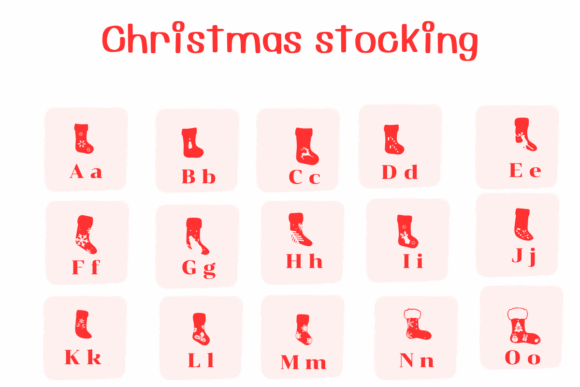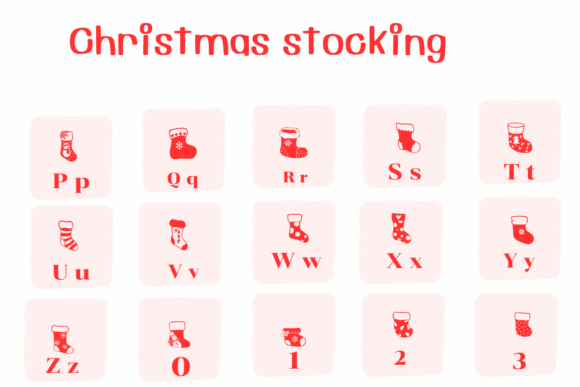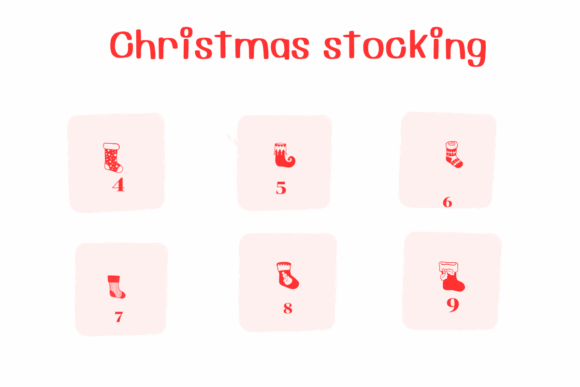
Christmas Stocking Font
A Christmas Stocking dingbat font is a fun and decorative font where each letter or symbol is replaced with a small picture of Christmas stockings. Perfect for holiday designs like cards, invitations, or crafts!